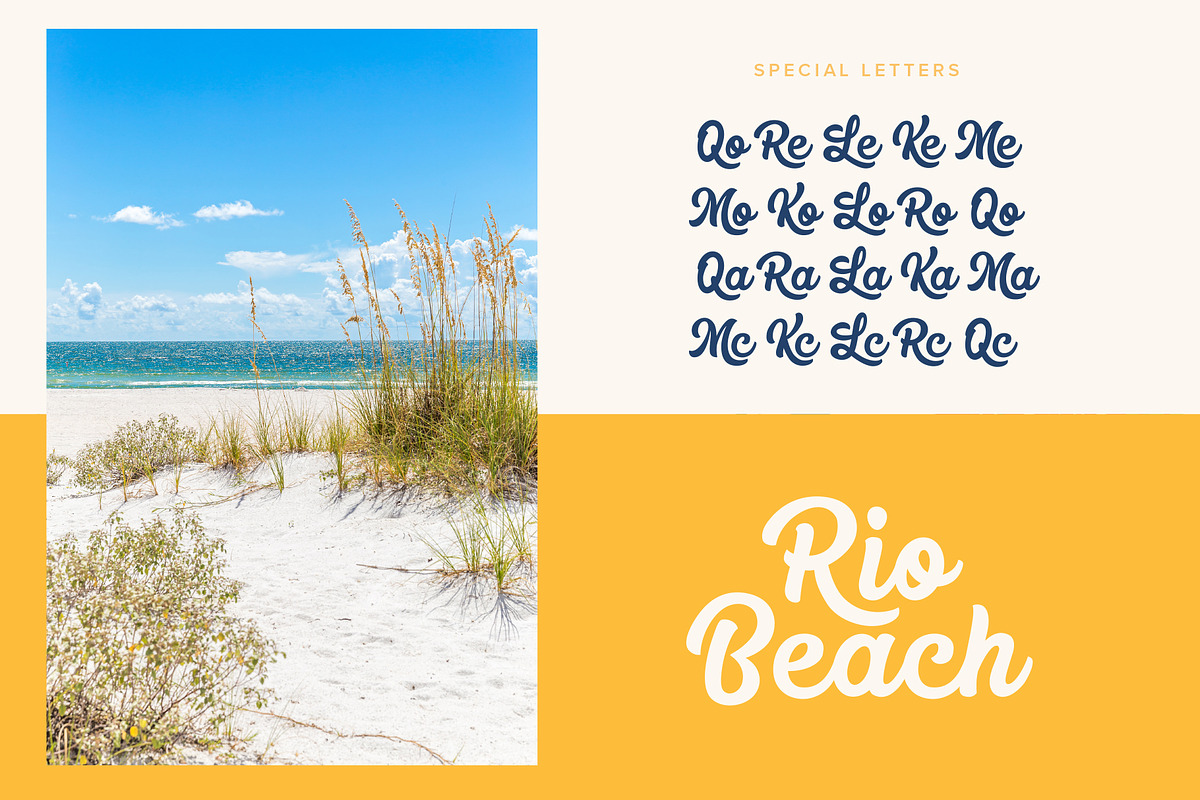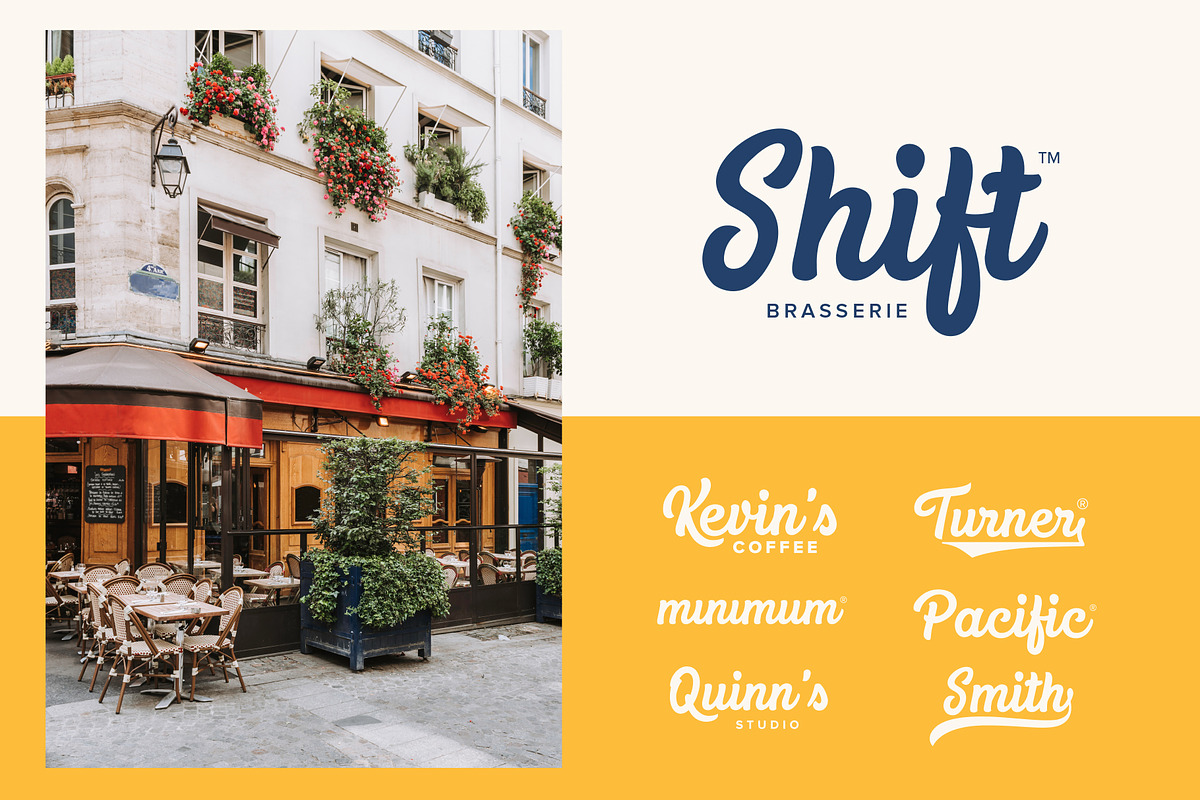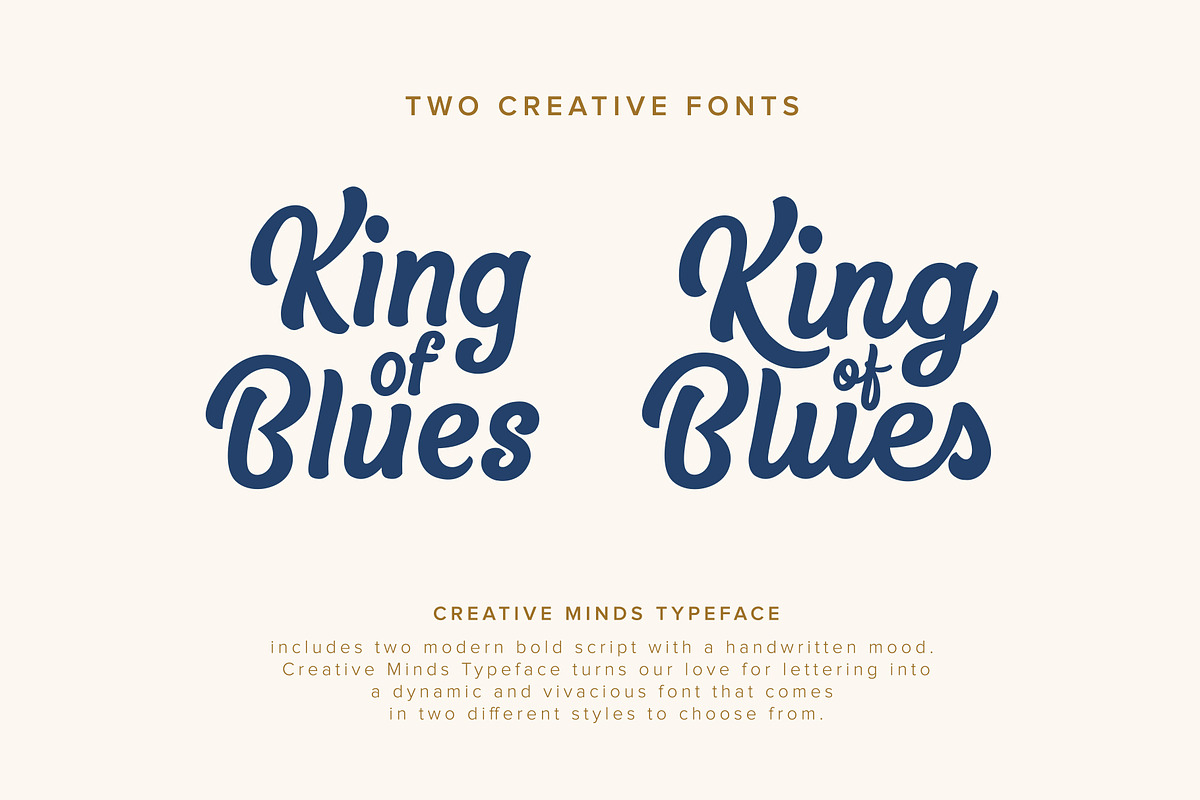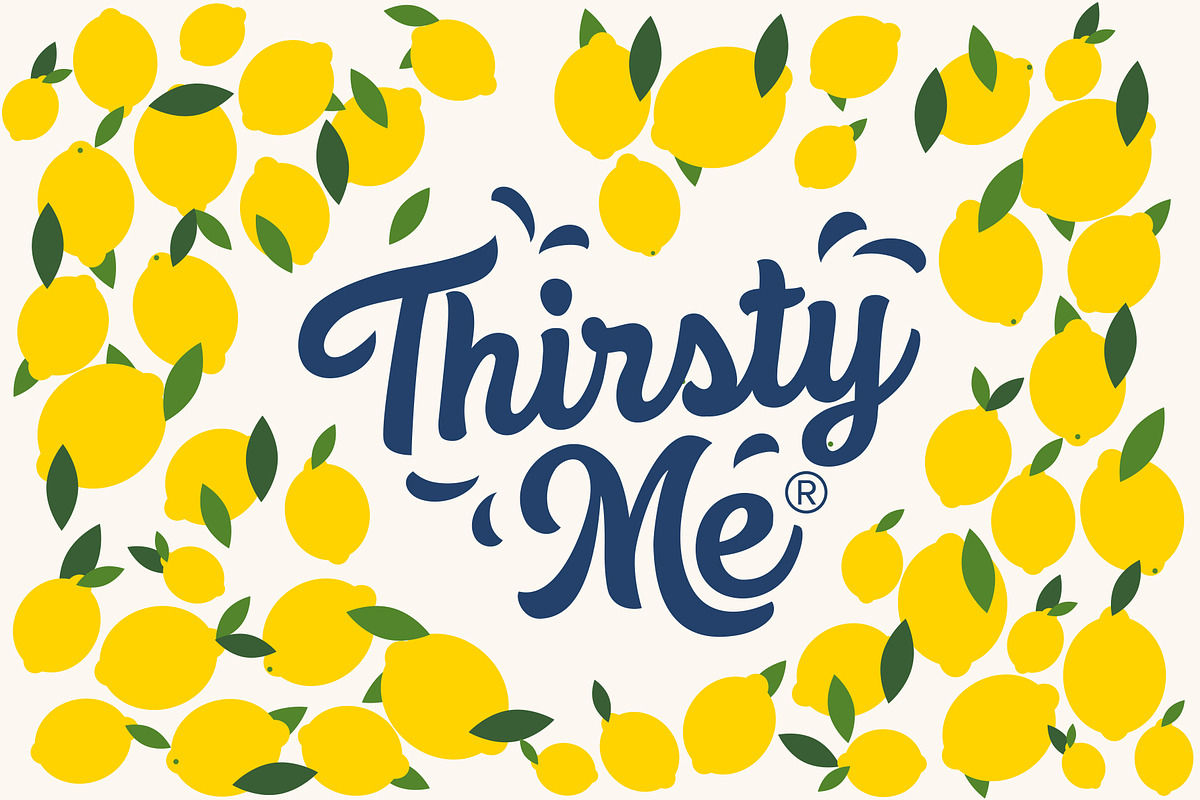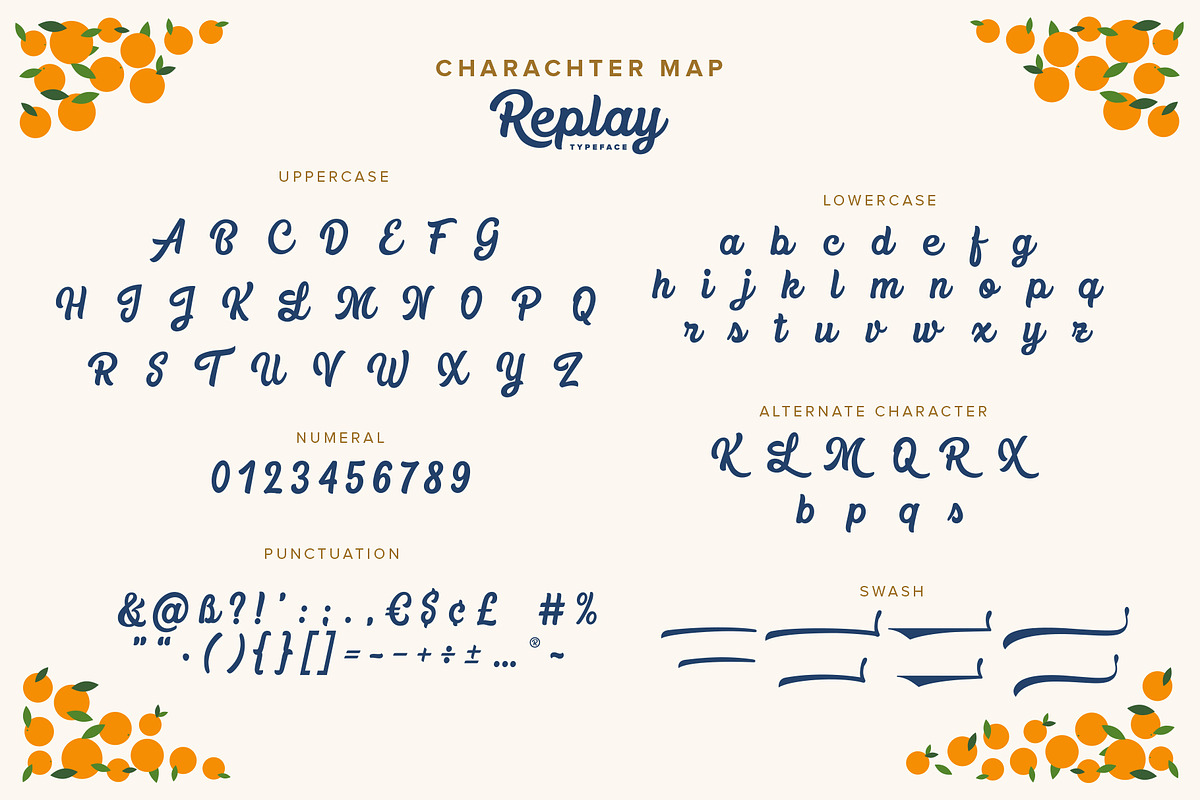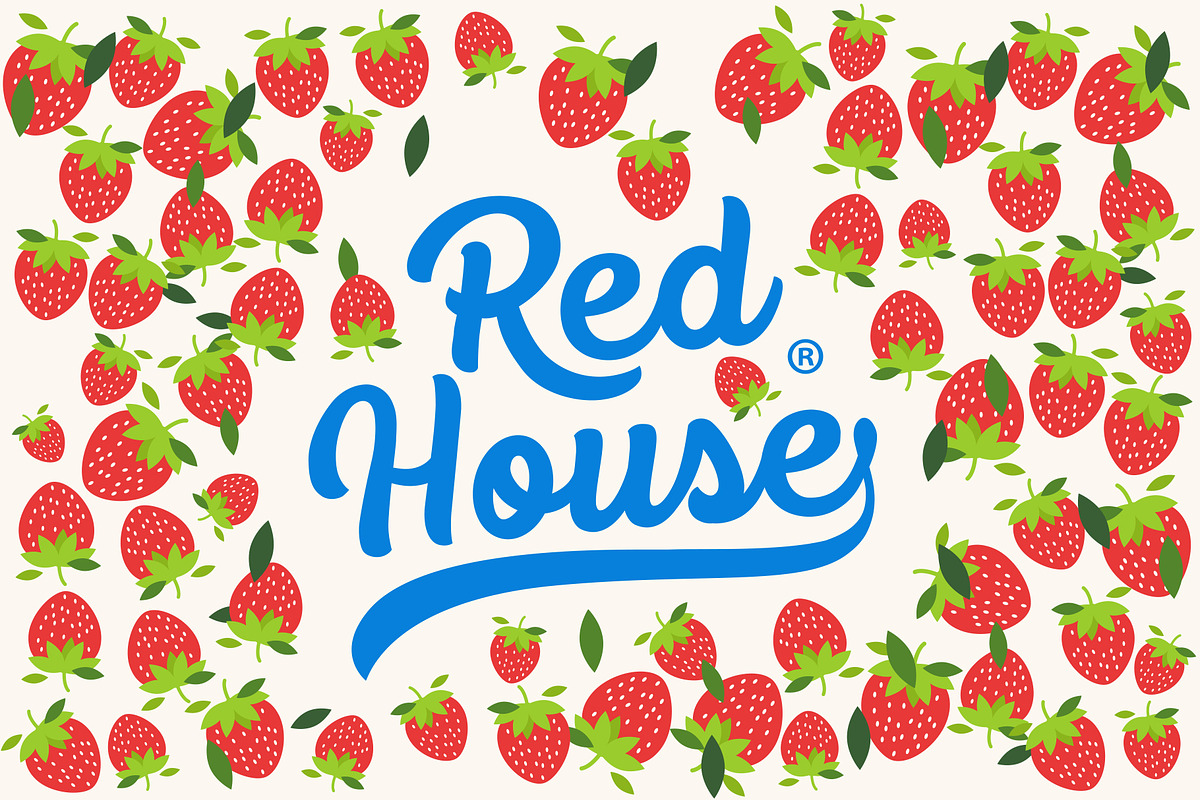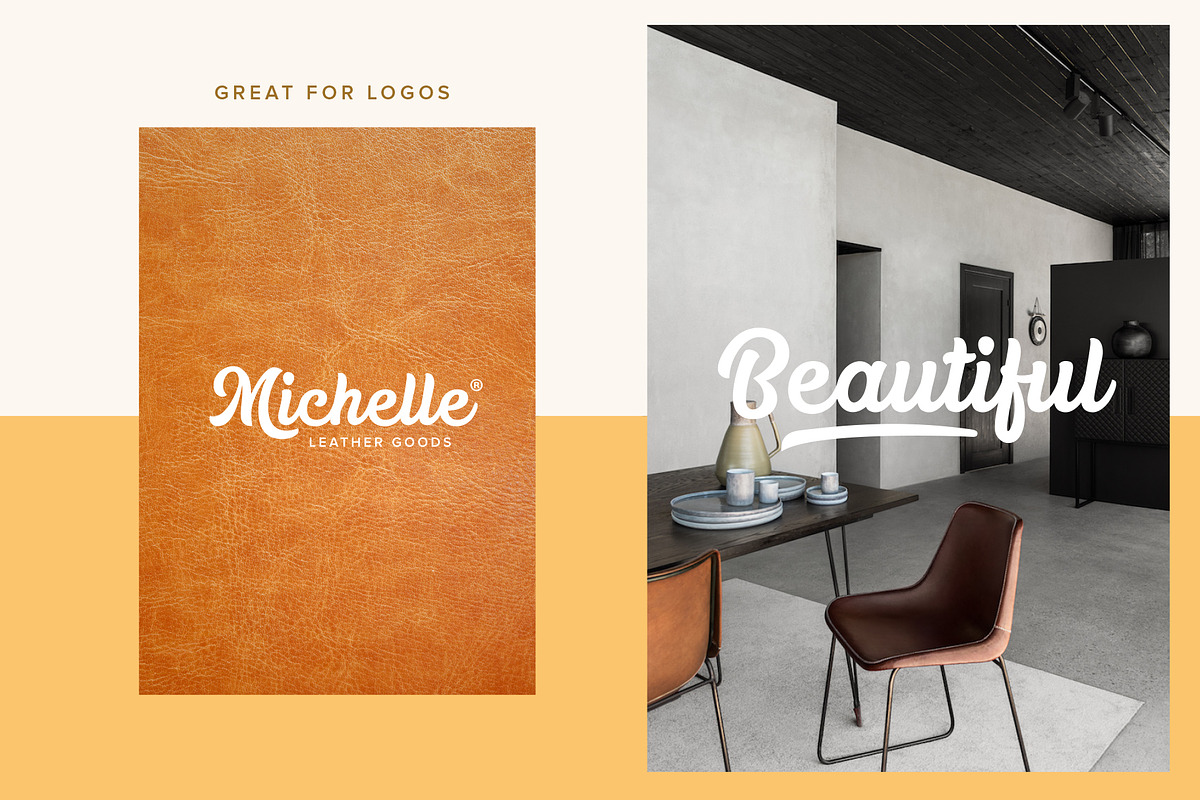
Creative Minds Typeface
Check for entire shop bundle in my profile. Introducing a new hand drawn font duo carefully crafted with a personal charm. It is a hot font, perfect for a design that stands out even if it’s a logo, or simply a stylish text over an background image.
Creative minds it's formed by two typeface: Replay & Tyler which allows you full access to all the extra characters without the need of specialized software. Simply open Font Book (Mac) or Character Map (Windows) to access any of the extra characters.
Creative Minds Typeface by Liviu fits naturally into Branding, posters, packaging, typography.